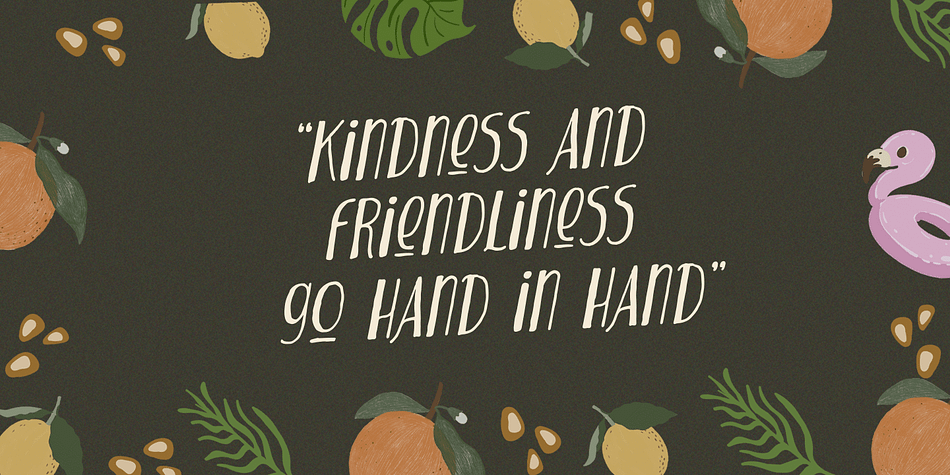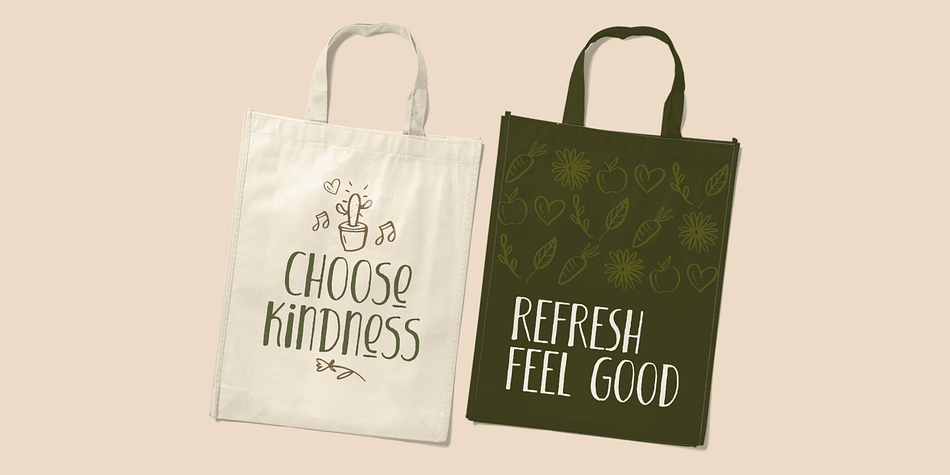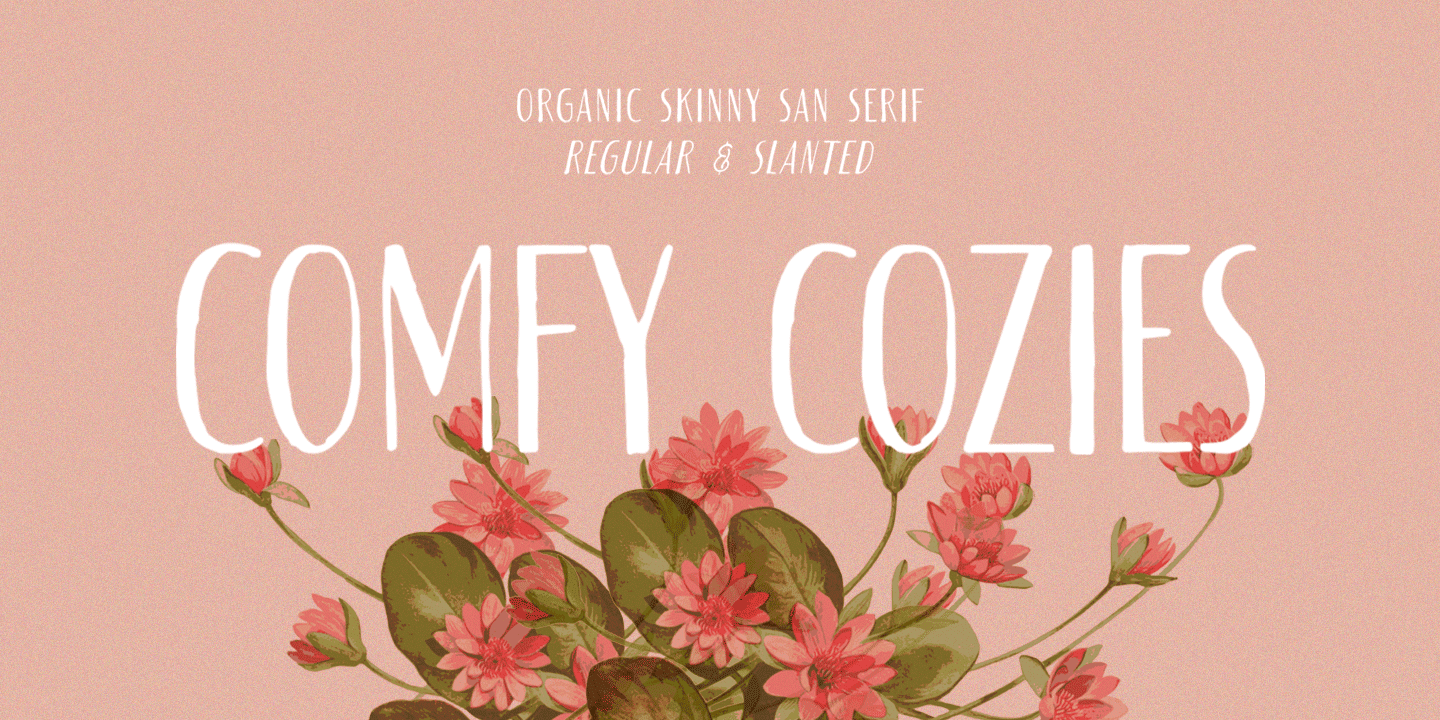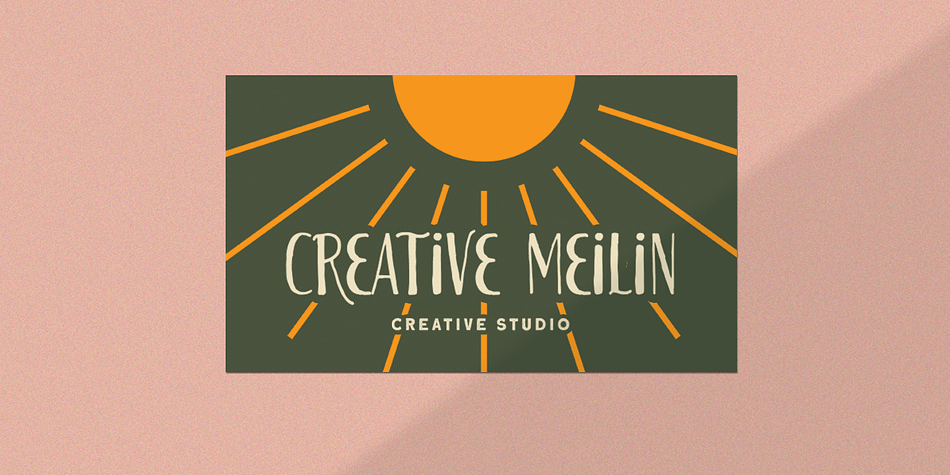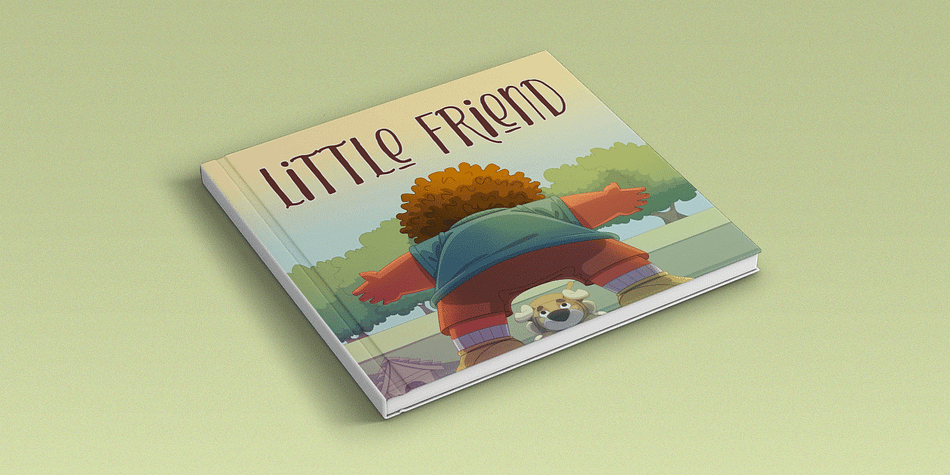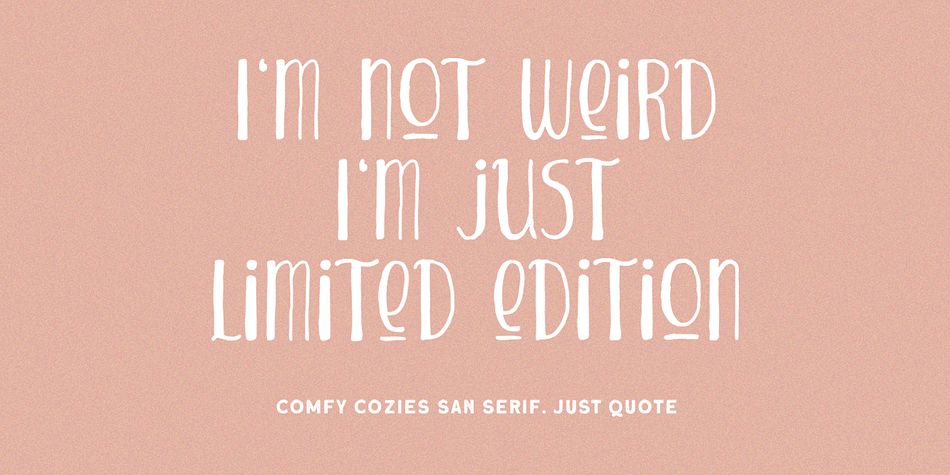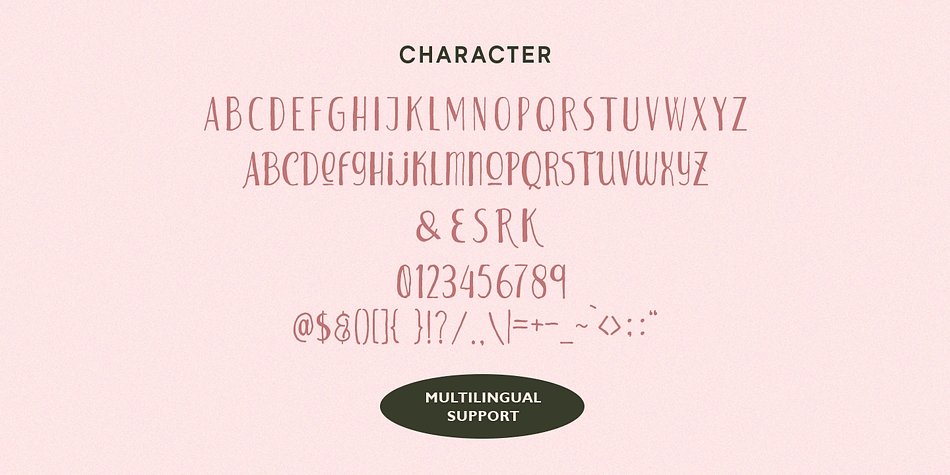
Comfy Cozies
Designed by Hendry Juanda, Comfy Cozies is a display sans and hand display font family. This typeface has two styles and was published by Letterhend Studio.
Looking for a font that feels both cozy and stylish? Look no further than Comfy Cozies. This organic sans serif font has a skinny form that gives it a light and airy feel, while the regular and slanted styles offer versatility and creative potential. Whether you’re designing for a playful brand or a casual event, this font will add a touch of warmth and charm to your work.